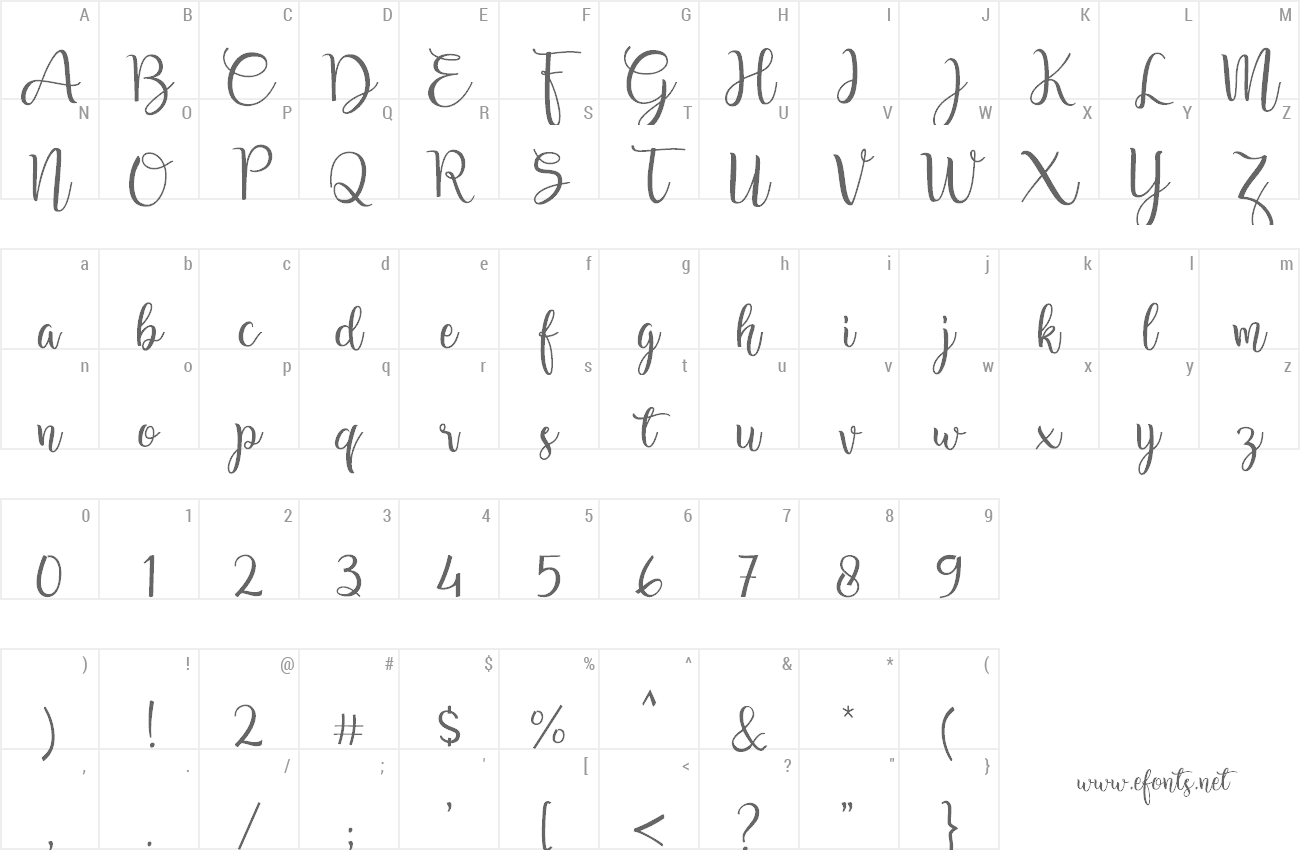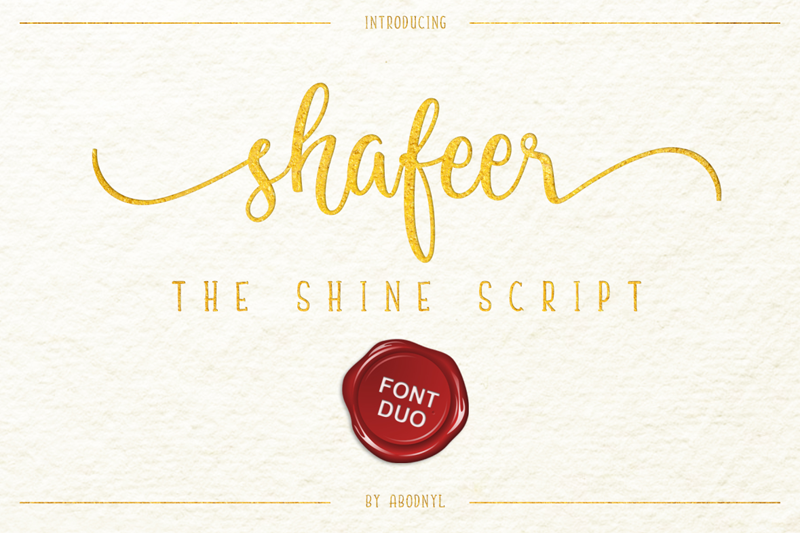
Preview and download Shafeer Font. Created by Abo Daniel in Script Calligraphy styles with Free for personal use license.
Introducing Shafeer the shine script Font Duo. This is for personal use only. What's included: in demo version you only get: - Shafeer (Otf, Ttf ) - Shafeer Descript (Otf, Ttf ) with limited features To purchase full version and commercial license please go to: https://www.creativefabrica.com/product/shafeer-duo/ in the premium you will get : - Shafeer (Otf, Ttf) - Shafeer Descript (Otf, Ttf) With Full features Shafeer was built with OpenType features. It has an alternate upper and lowercase character set, Swashes, titling alternate, numbers, punctuation, ligatures and it also supports multilingual. It can be used for branding, photography, invitations, watermarks, advertisements, product designs, labels, product packaging, and much more! This font works best in a program that supports OpenType features, such as Adobe Indesign CS, Adobe Illustrator CS, or Adobe Photoshop CC. thank you Abo Daniel |